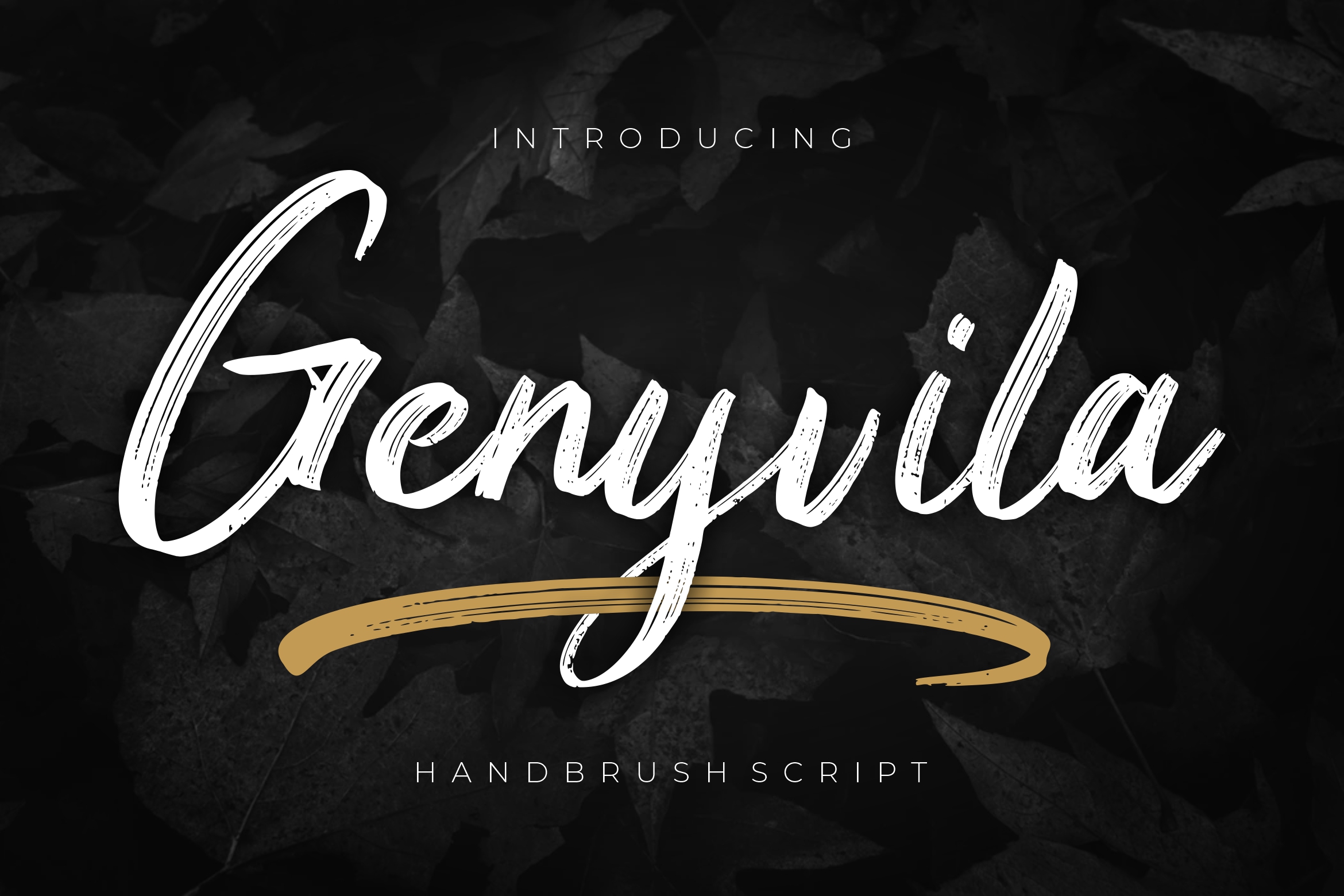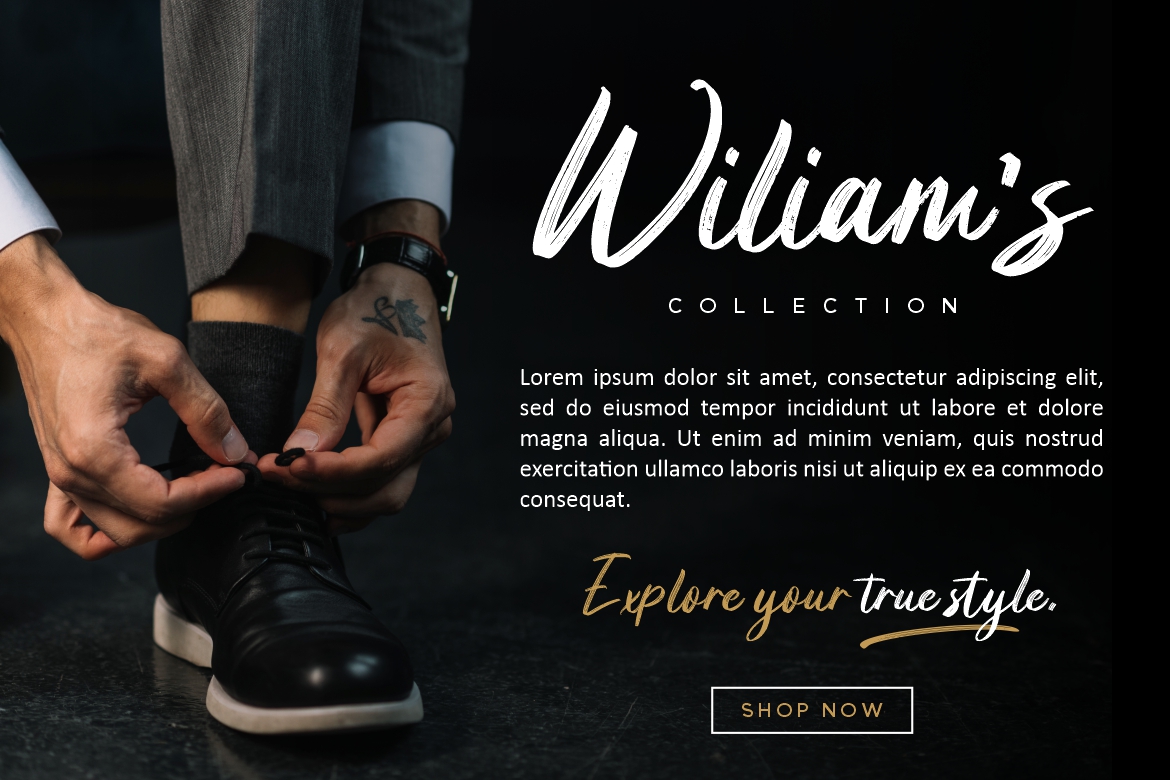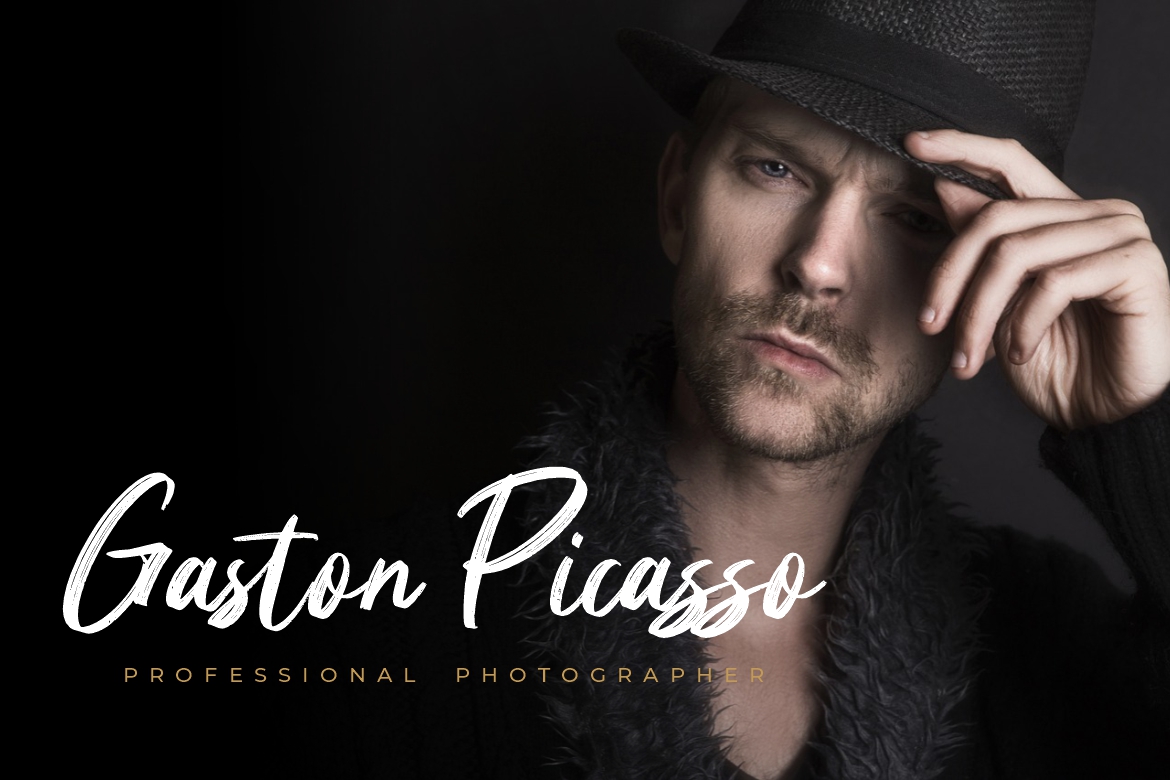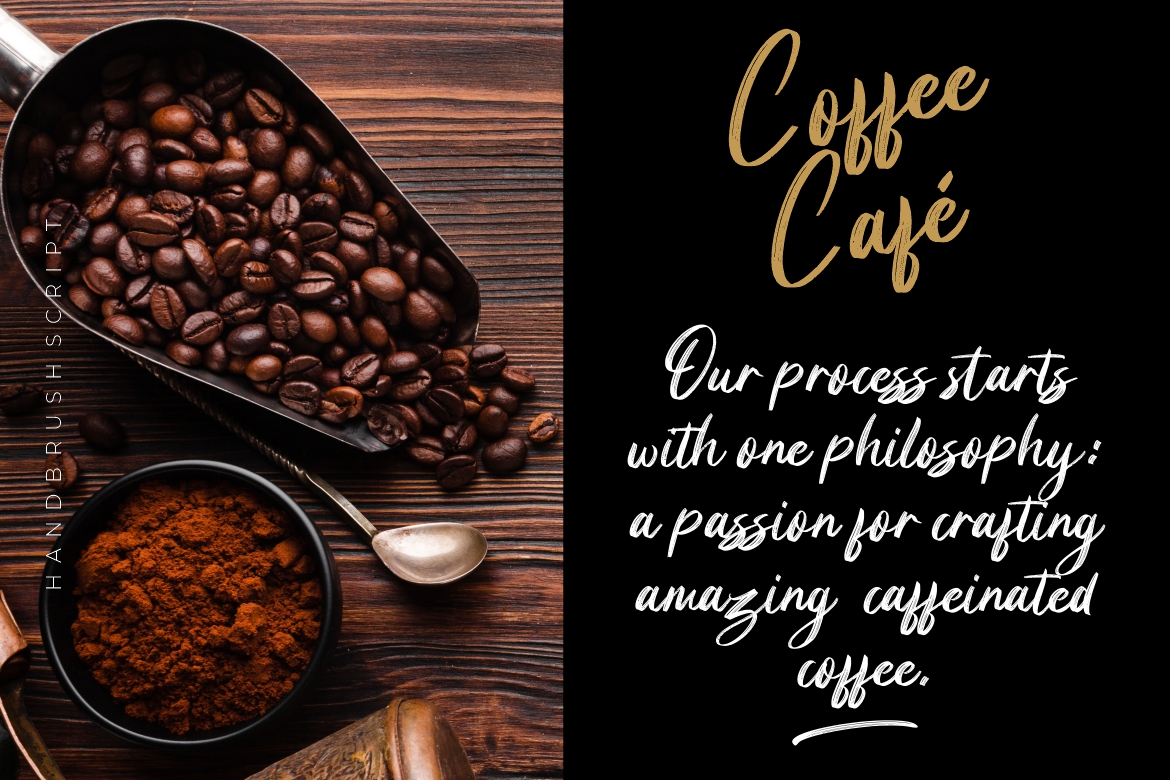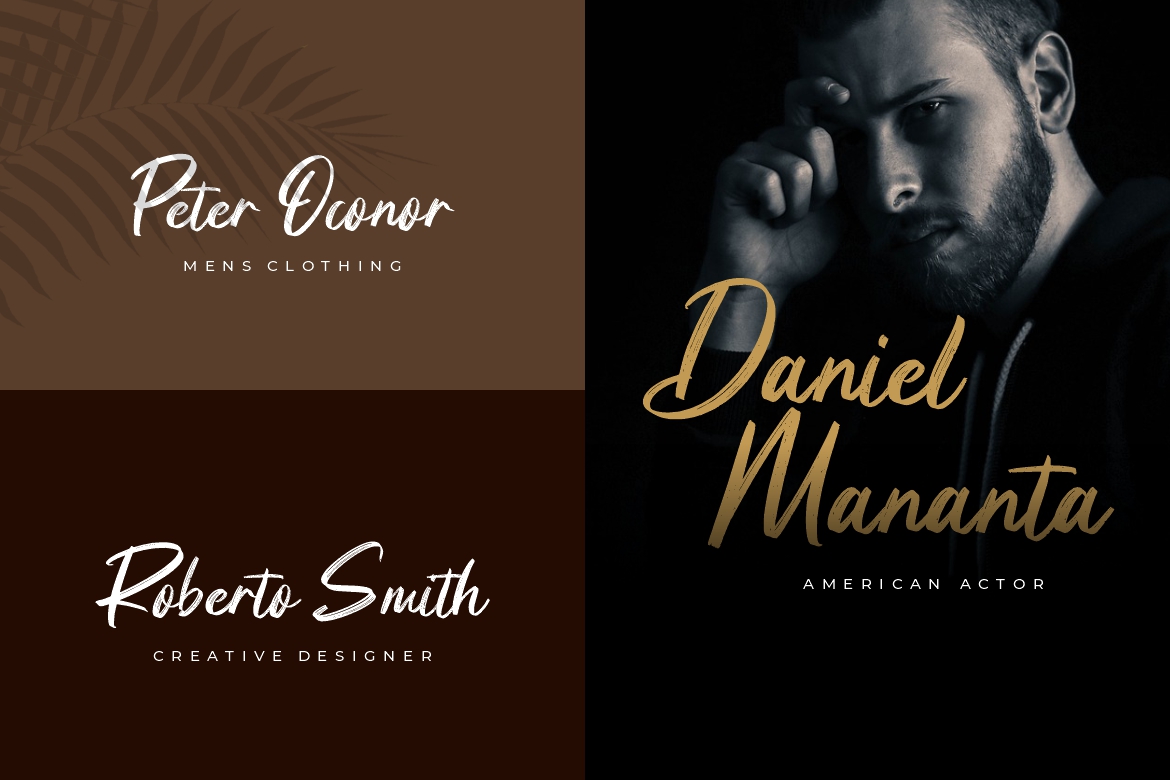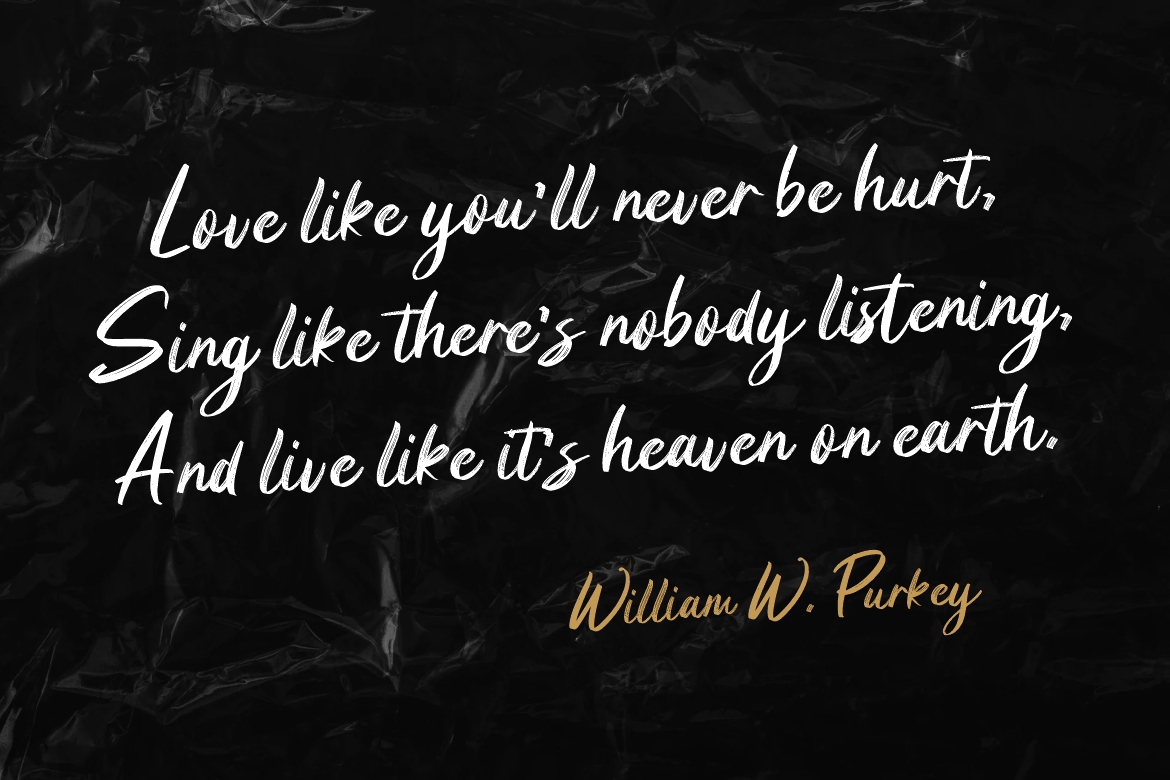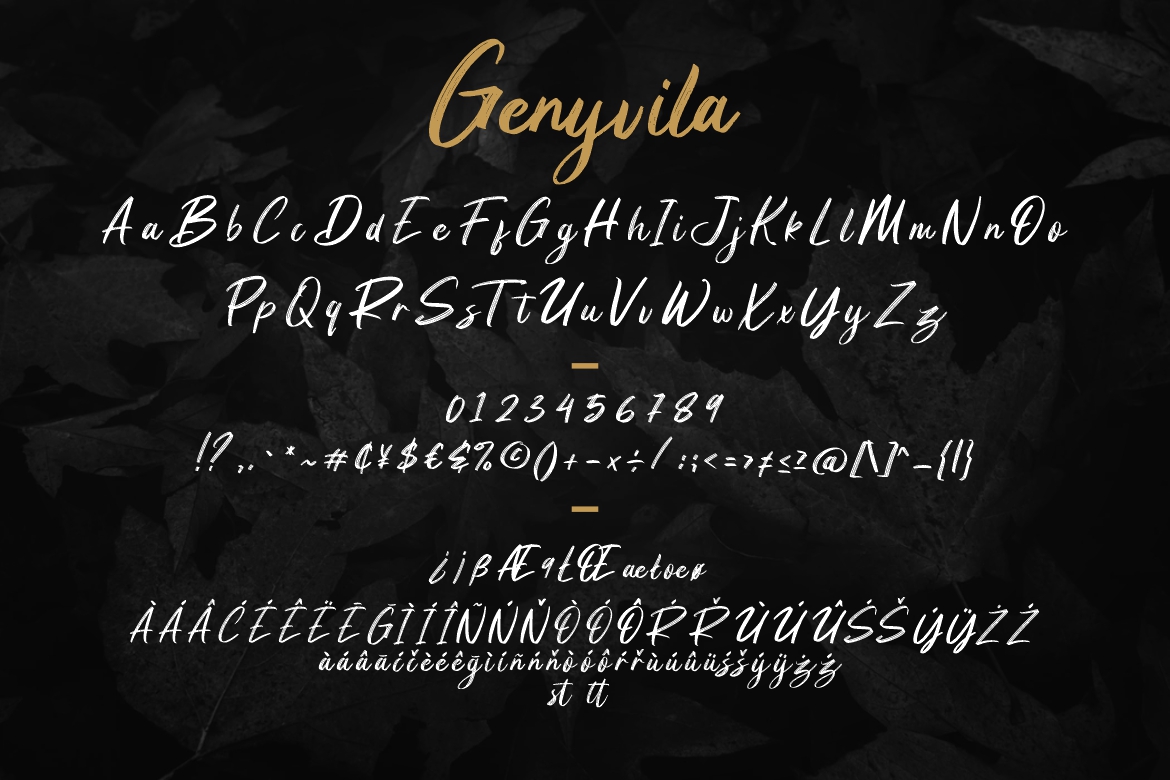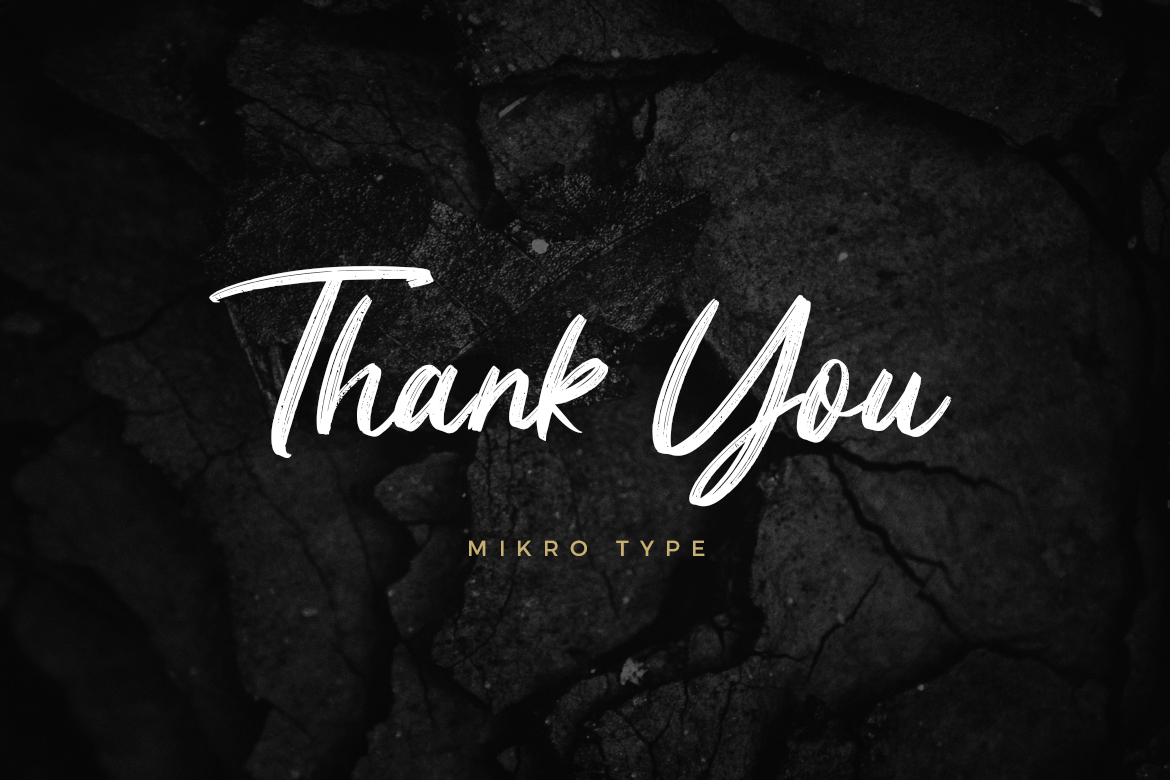
Genyvila Handbrush Business Font
Introducing Genyvila – Handbrush font with bold and stylish scratch make will perfect for your latest project. The font is perfect for for movie title, logo, blogging, brand identity, book title, social media, branding, wedding invites, cards or simply use it in your next design project and suitable to use for many occasion.
• Ton of glyphs
• Ligature & Alternate
• Fonts include multilingual support for; Afrikaans, Albanian, Czech, Danish, Dutch, English, Estonian, Finnish, French, German, Hungarian, Italian, Latvian, Lithuanian, Norwegian, Polish, Portuguese, Slovak, Slovenian, Spanish, Swedish.